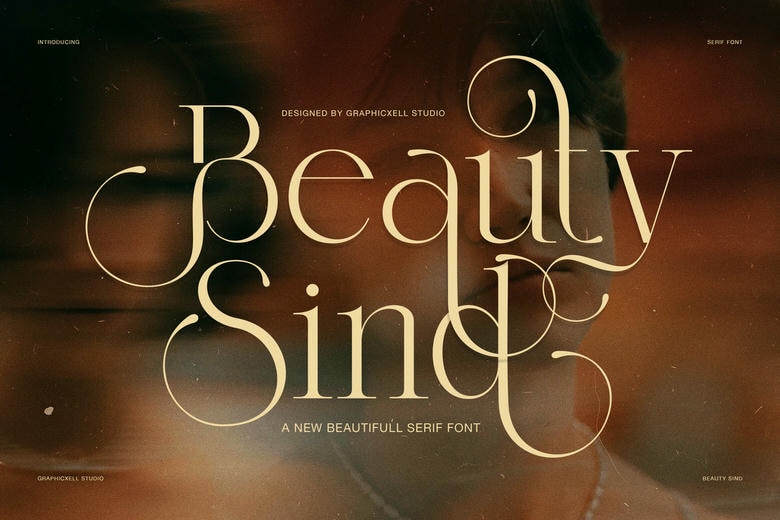
Beauty Sind Font
Beauty Sind features a refined serif design with a stylish, fashion-forward look. Its long loops and flowing details make even simple words stand out. This makes it a great option for brands that want to appear elegant and memorable.
The letterforms are tall, with fine contrast and softly rounded ends. The alternate characters add creative flair, helping each word feel more personal, artistic, and unique while keeping the layout clean.
Beauty Sind Serif Font